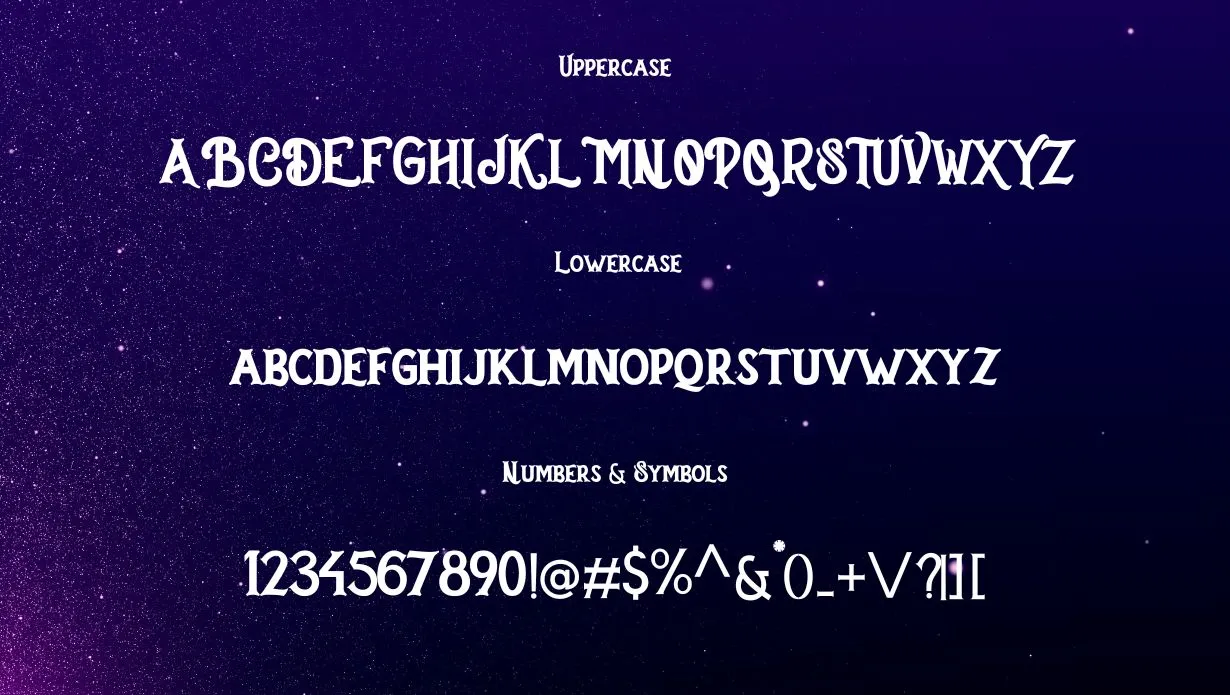
Dakota font is a casual and friendly typeface. It’s known for its relaxed and approachable appearance, making it suitable for informal designs such as personal correspondence or blog headers.
Technical specifics might involve the utilization of clean lines and a straightforward, easy-to-read design, enhancing its suitability for various light-hearted or relaxed contexts.
| Name | Dakota Font |
| Designer | Khusnun Irawan |